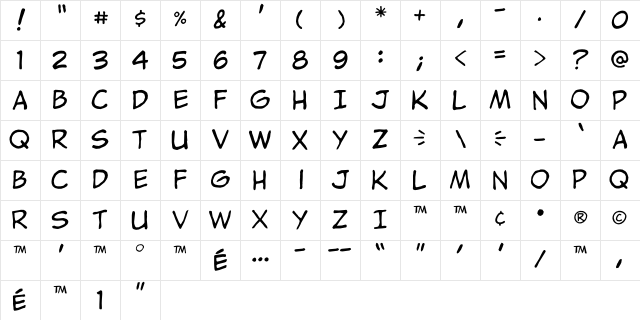
Complete jibbajabba Regular glyph index. Displaying only characters natively supported by jibbajabba Regular font.
jibbajabba is a composed and adaptable typeface that performs quietly and consistently across a wide range of design contexts.
Who designed the jibbajabba Regular font?